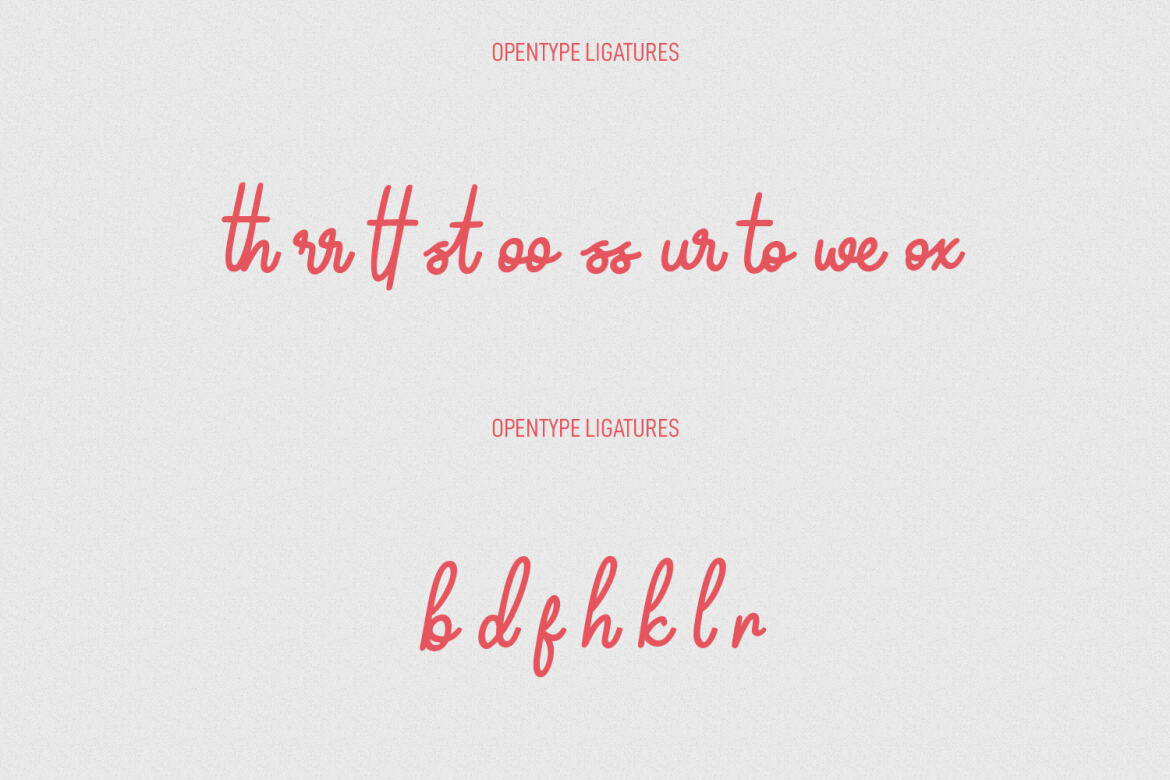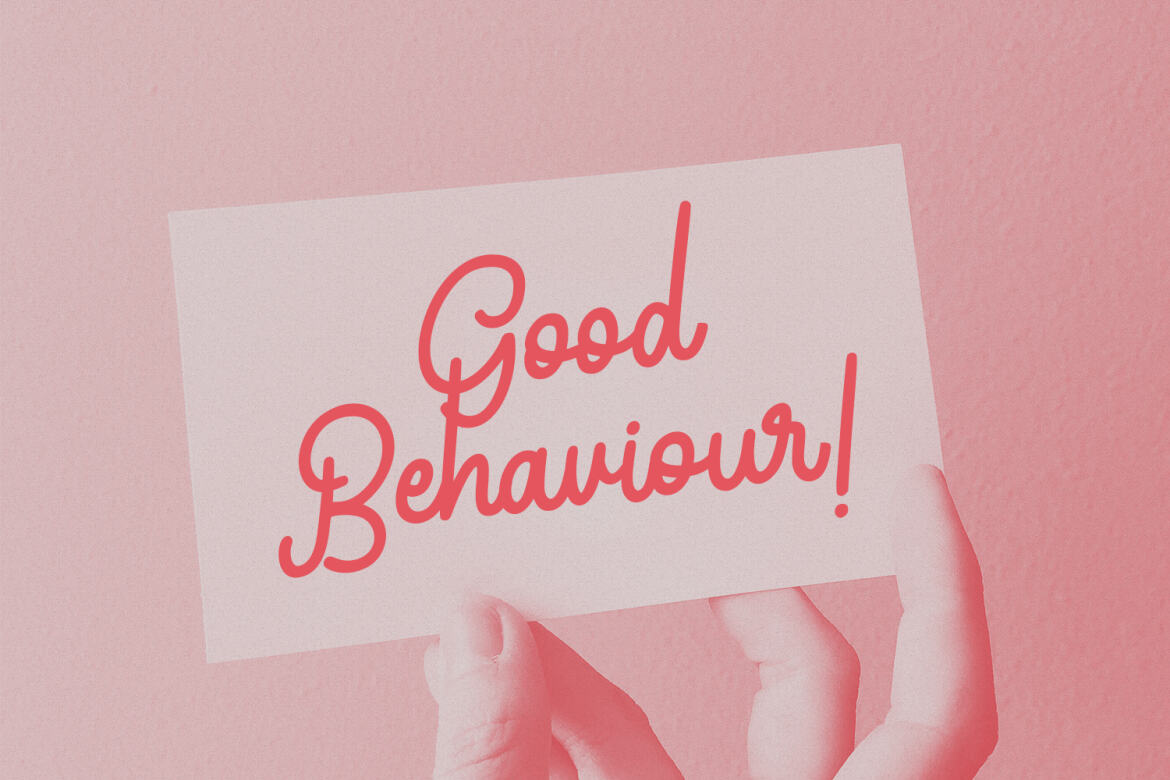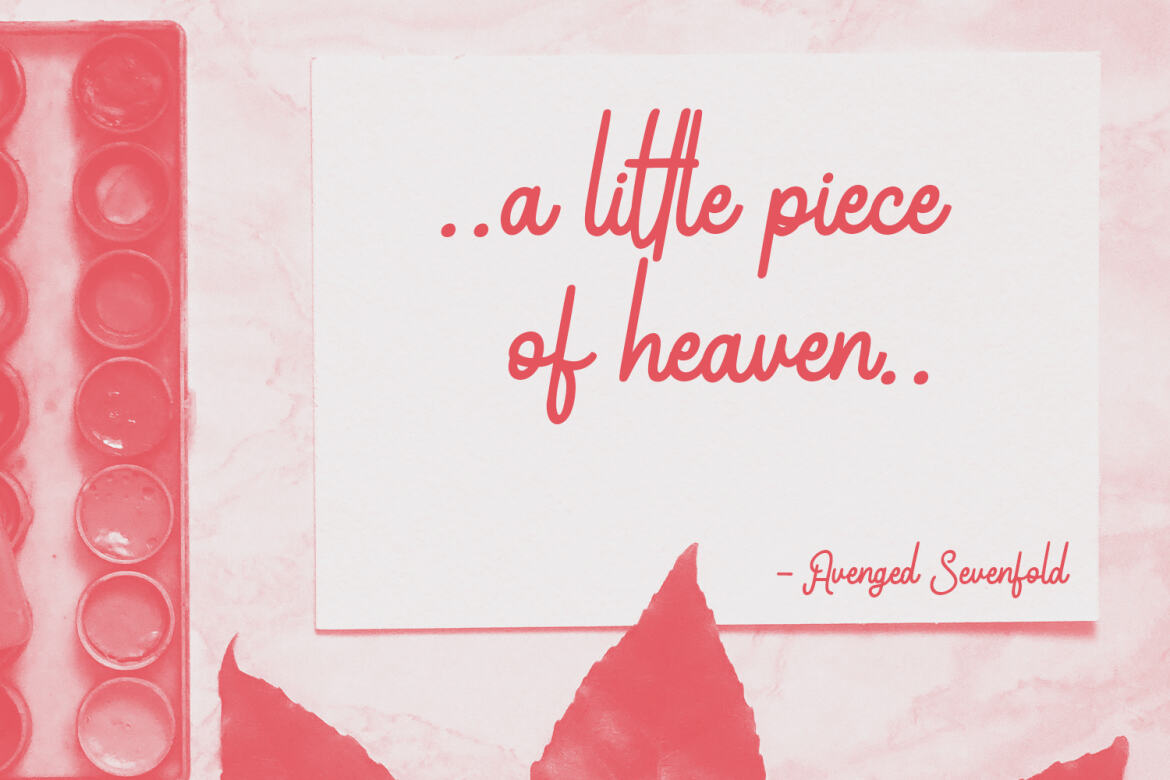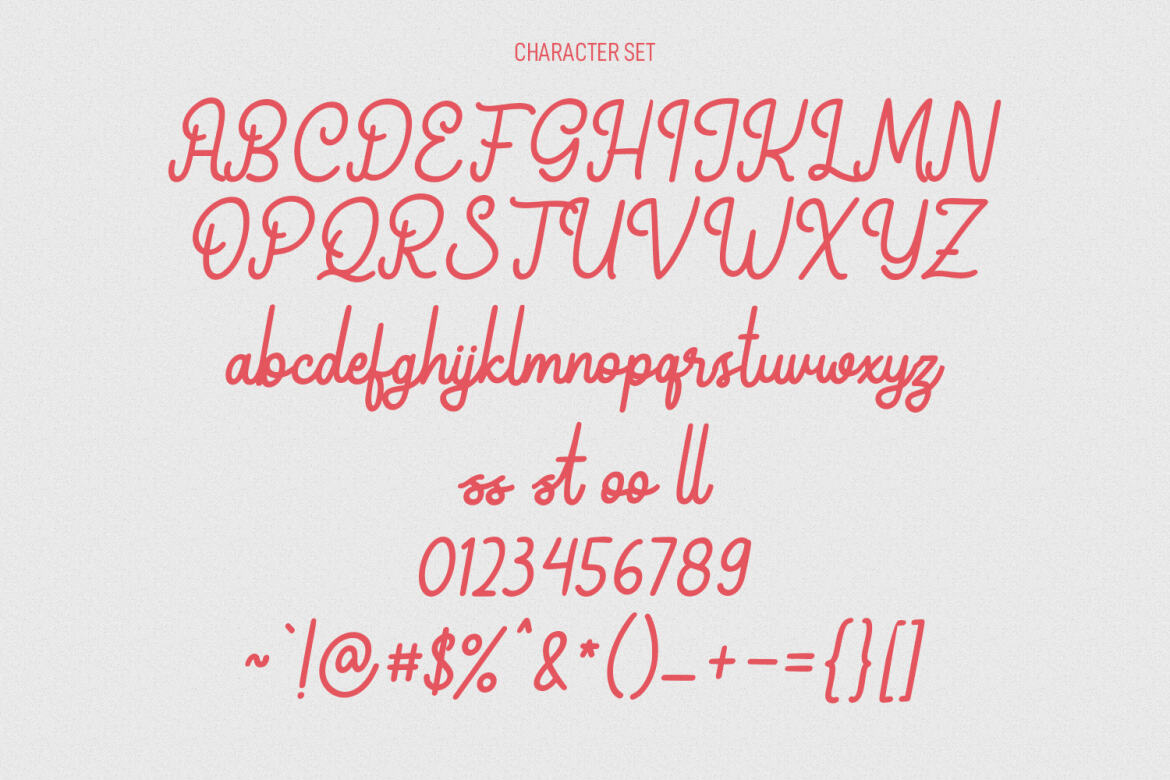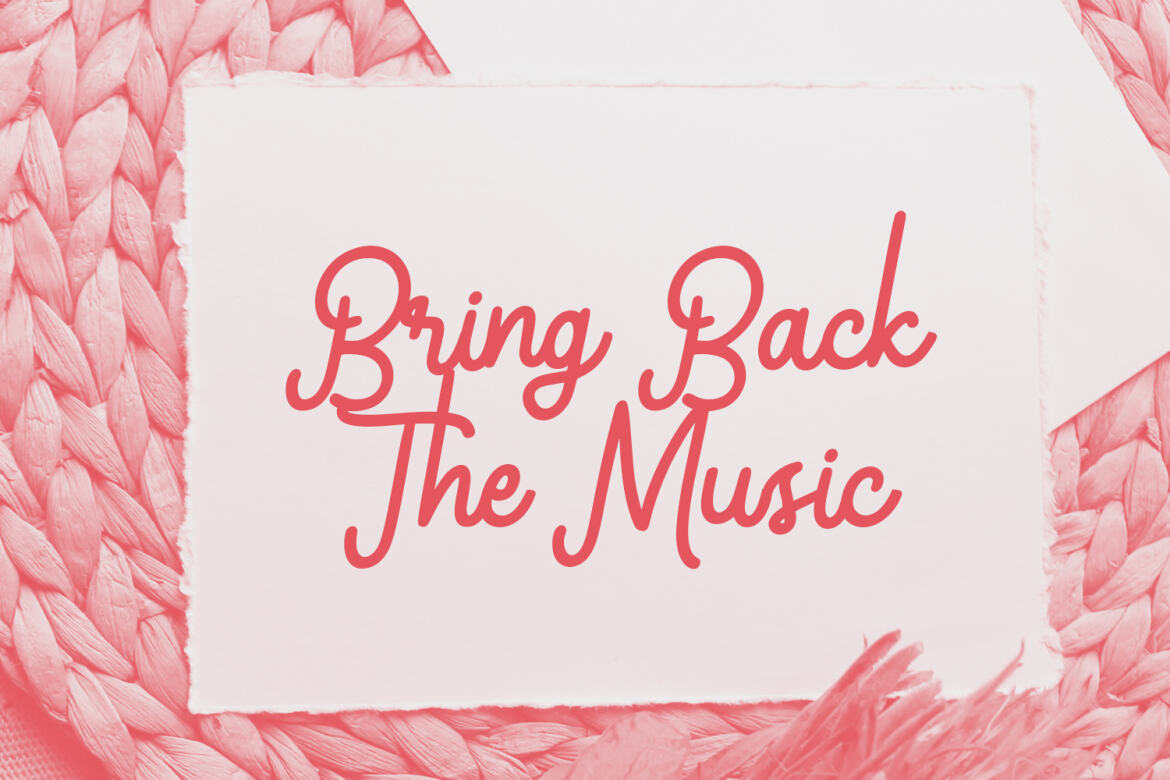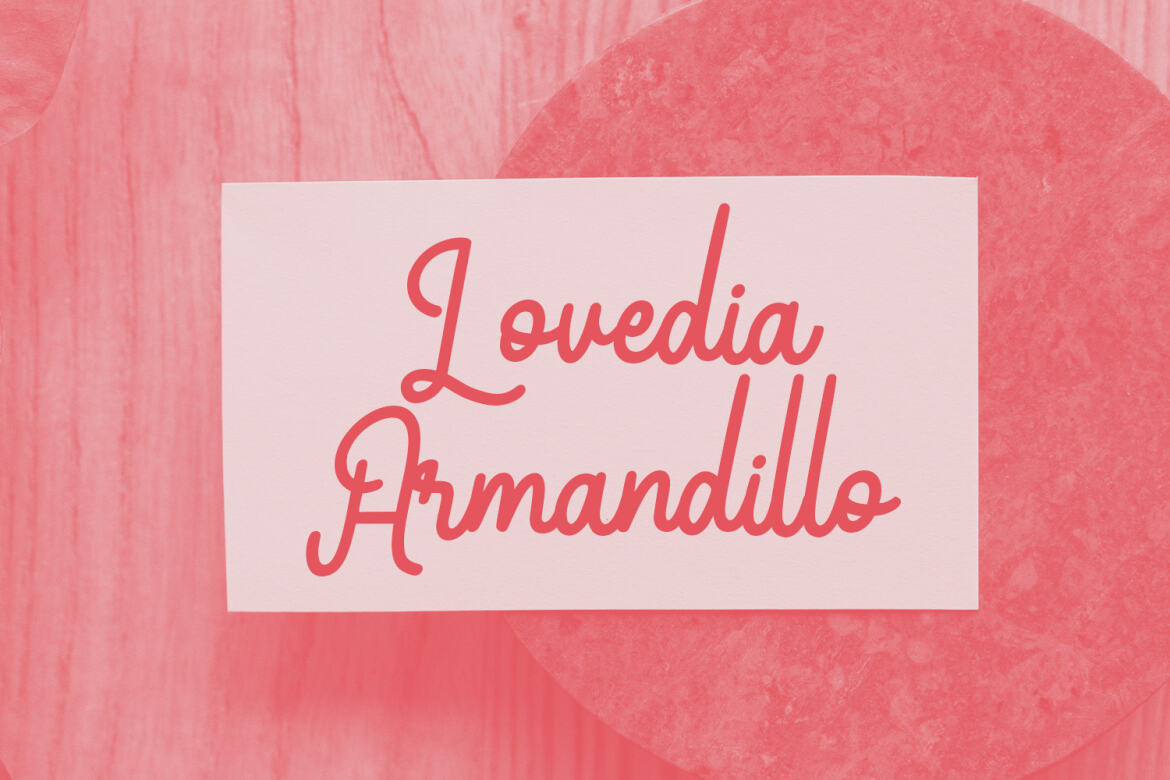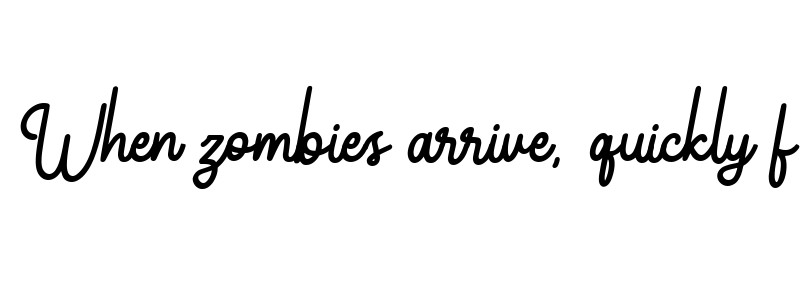
Yearlys Retro FREE Script Font
Yearlys
Yearlys is a casual retro script font. With mono-line consist stroke, fun character with a bit of ligatures and alternates. To give you an extra creative work. Yearlys font support multilingual more than 100+ language. This font is good for logo design, Social media, Movie Titles, Books Titles, a short text even a long text letter and good for your secondary text font with sans or serif. Make a stunning work with Yearlys font.